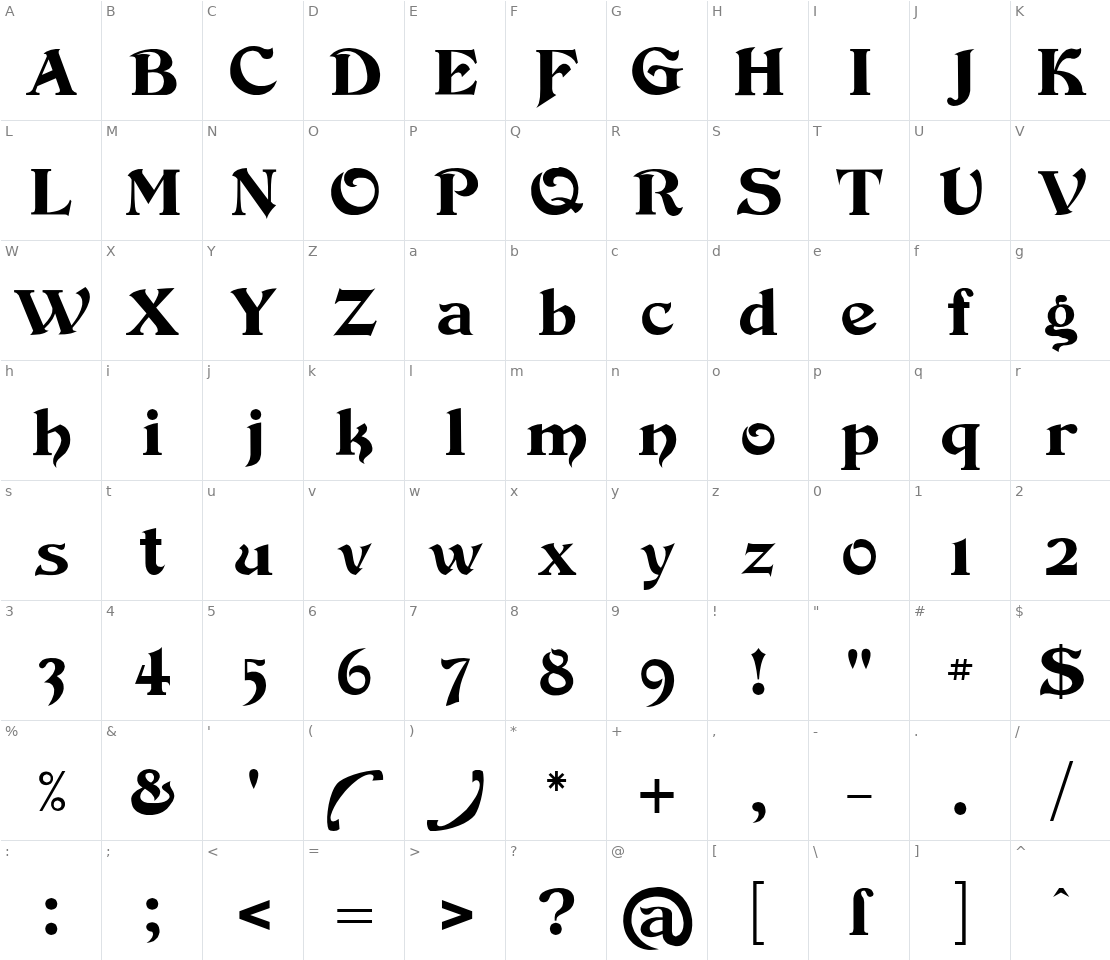
Devinne Swash
Devinne Swash is a bold old-style display face from Dieter Steffmann with sweeping calligraphic swashes that add real flourish to each letterform. The weight keeps it grounded and readable at headline sizes, while the decorative strokes give it a vintage elegance rooted in 19th-century typographic tradition. A strong pick for titles, logos, and editorial headers where you want ornamental richness without losing legibility.